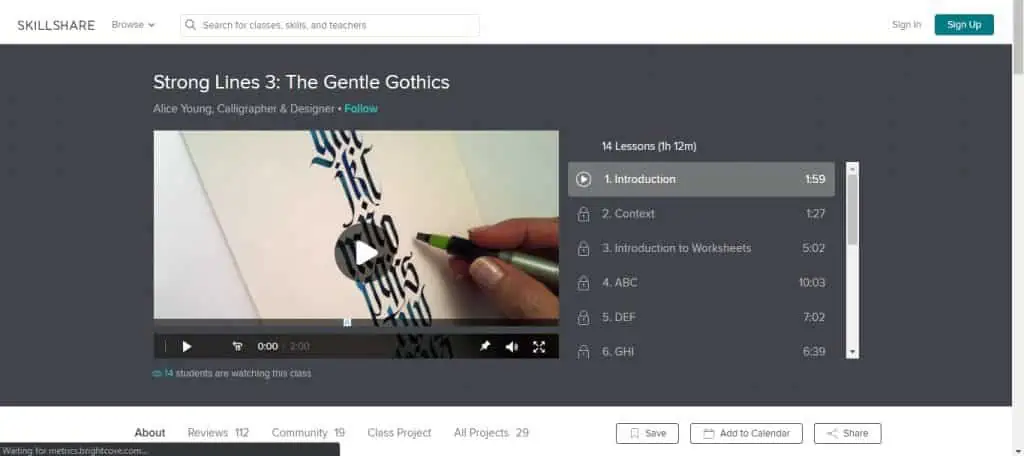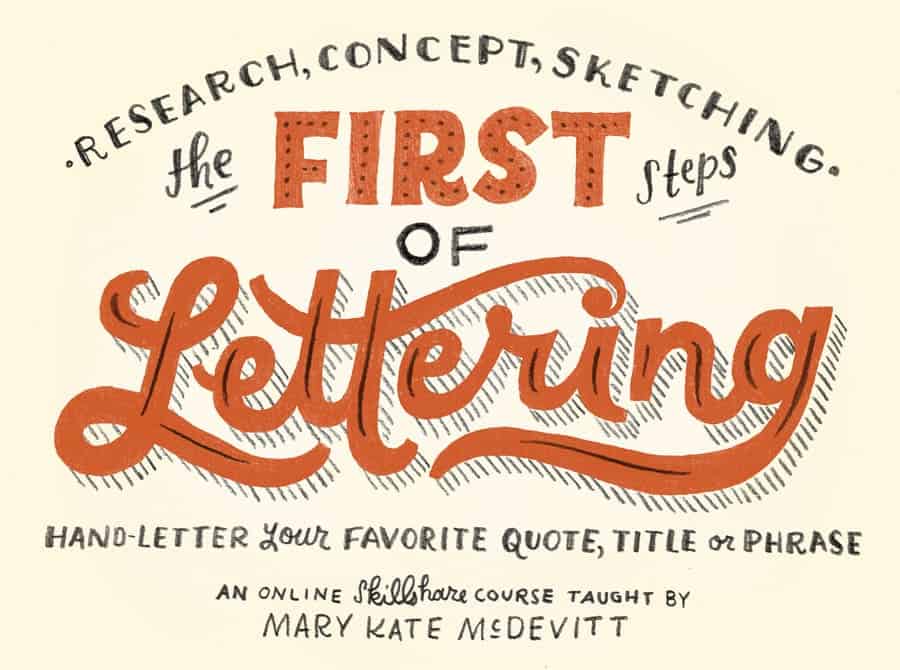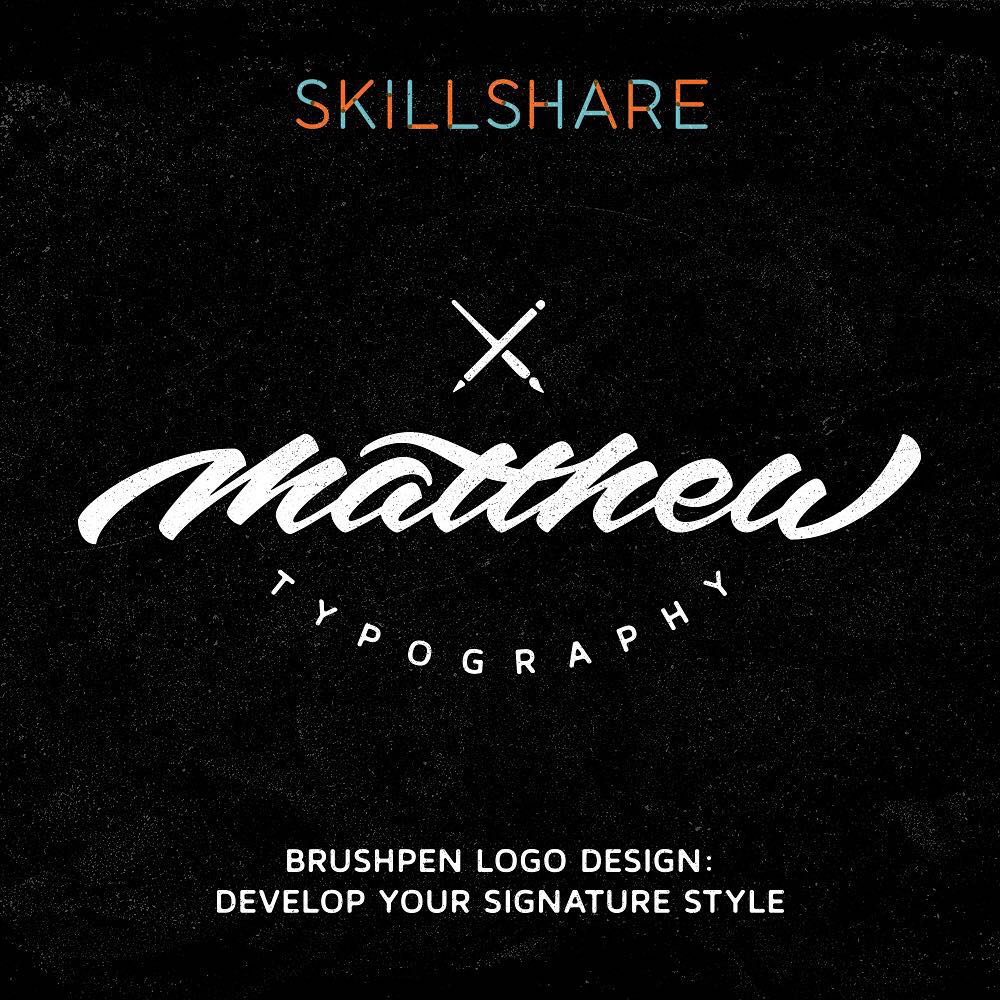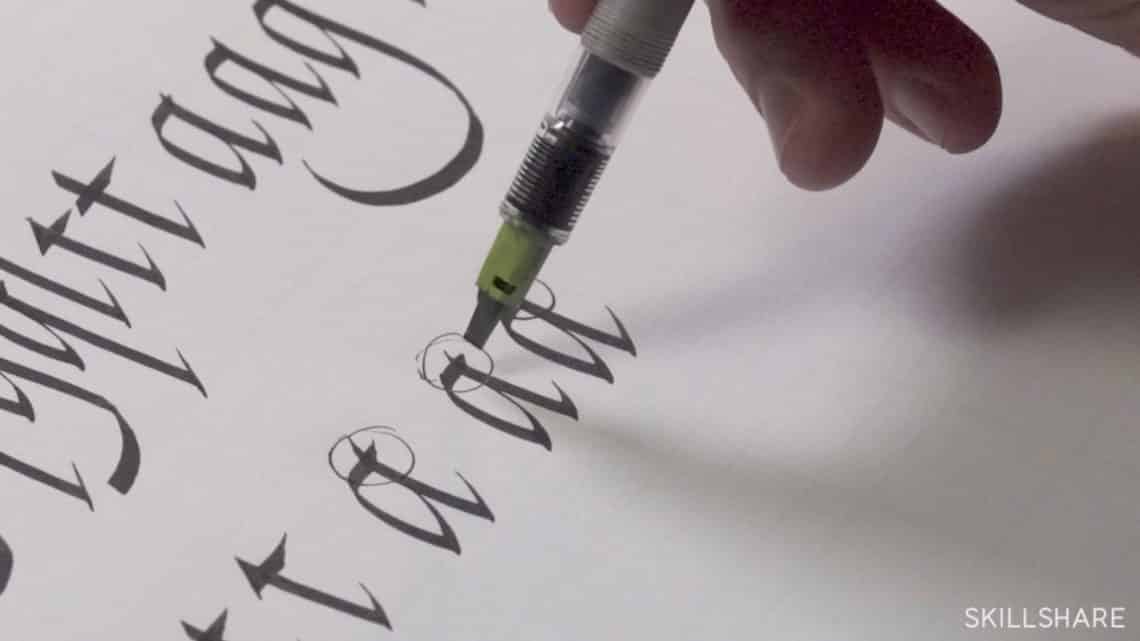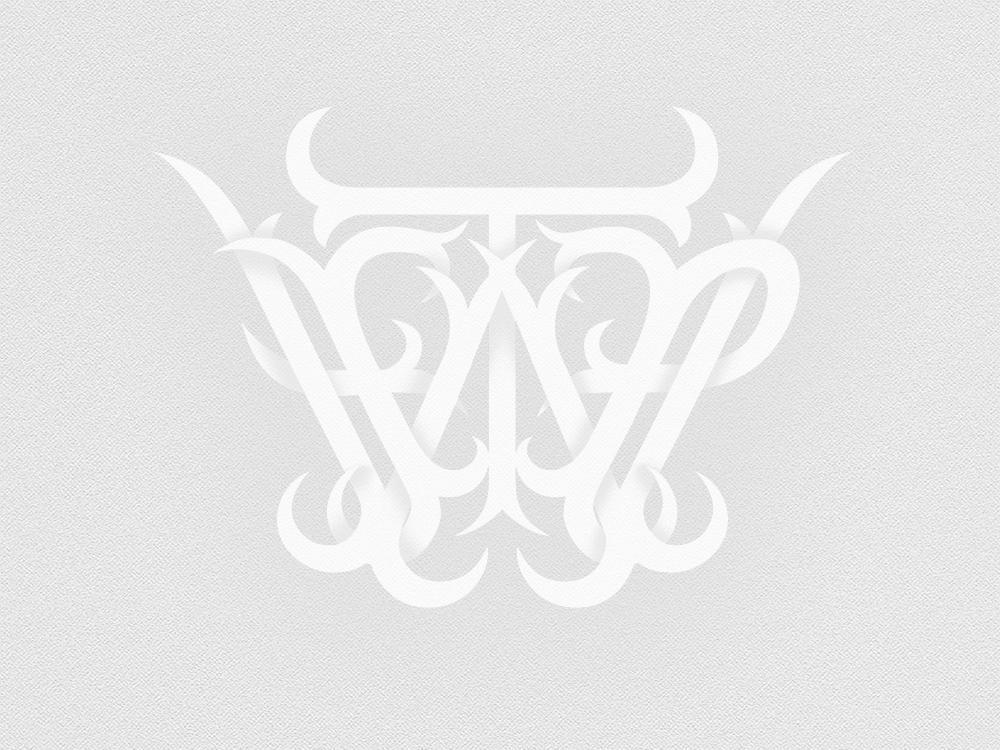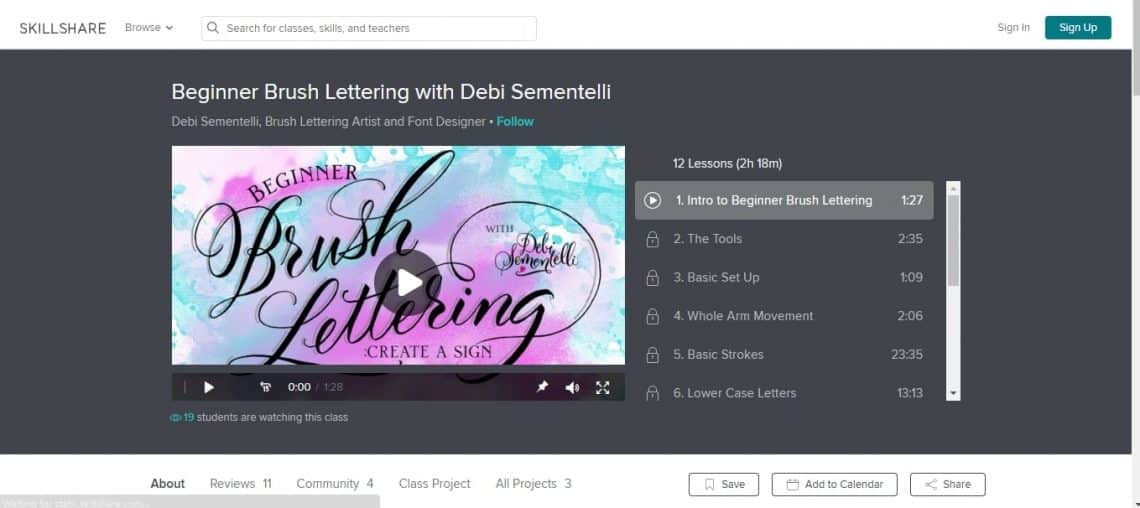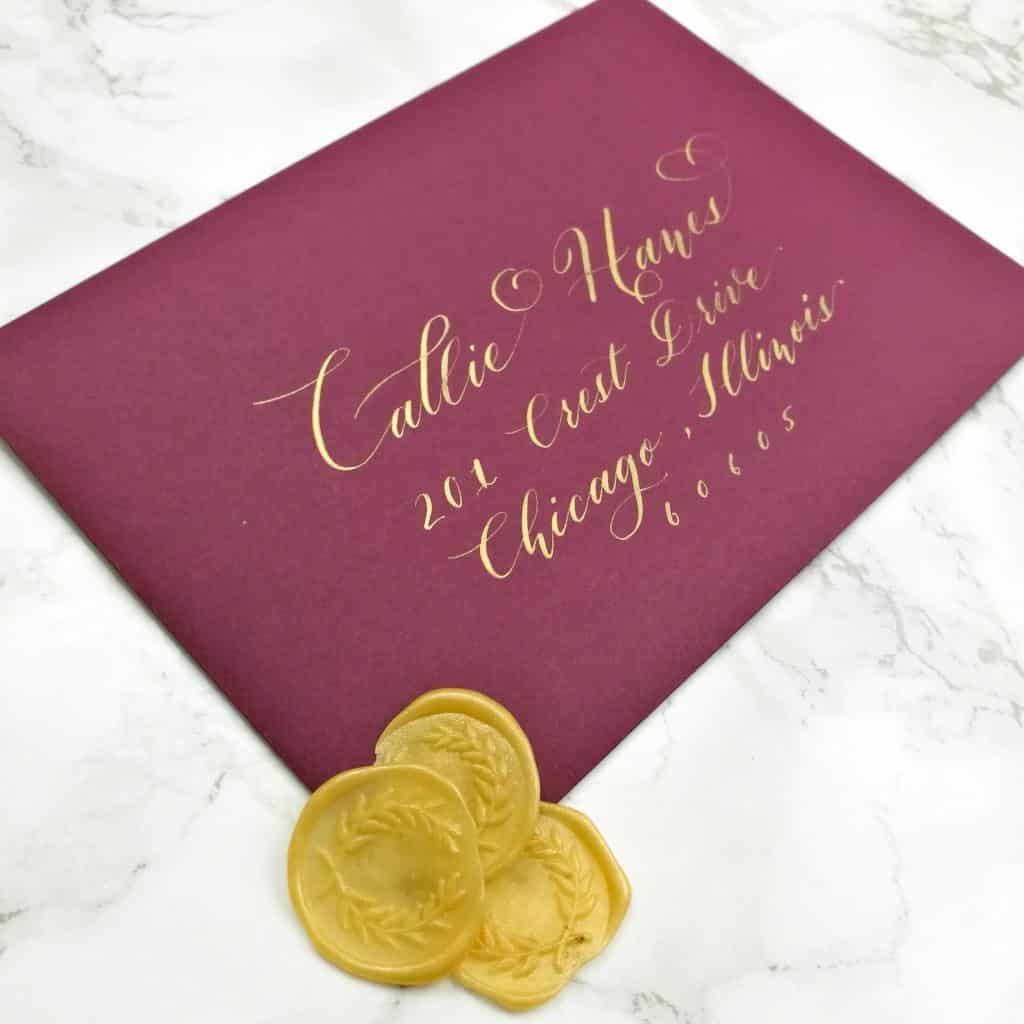
We live in a fantastic day and age where thanks to the internet, learning something new is more accessible than ever.
In this article, we are going to look at some of the best online classes for both hand lettering and calligraphy.
These classes are great for both beginners and more experienced lettering and calligraphy artists.
Hand lettering classes
1. Hand lettering essentials for beginners – by Mary Kate McDevitt
Starting this list strongly with the most popular lettering course on Skillshare – with more than 60+ thousand students already.
In this class, Mary Kate will guide you through her whole process, showing you how to come up with concepts, sketching and finalizing your work.
What makes this class great?
- Ideal for beginners (even if you have 0 experience)
- A clear overview of a process that can be applied in all sort of different projects
- Not too long and not too short – the class covers a lot of ground, and Mary Kate delivers the content very efficiently
2. The golden secrets of script lettering – by Martina Flor
This class is taught by one of the best artists in the lettering community.
As the title says, this class is focused on script lettering, and basically, Martina will guide you from start to finish on how to create a final piece departing from your own handwriting.
What makes this class great?
- Great for beginners – no previous experience needed
- You will learn the fundamentals rules about letterforms, spacing, proportions, etc.
- The course is only 1 hour long which is great for those with a strict schedule
3. Illustrated Lettering: Drawing Intricate Floral forms – by Gemma O’Brien
This class is taught by the insanely talented Gemma O’Brien (a.k.a @mrseaves101) who is famous for her vast detailed filled and jaw-dropping murals that we see on Instagram.
In this class, you will be focused on combining floral illustrations with lettering (on a single letter to be more precise).
Gemma will share her process from start to finish, and this class is filled with lots of helpful tips along the way.
If you want to learn how to effectively combine illustrations with typography, this is definitely the class for you.
Here is what makes this class great?
- Very easy to follow
- Learning about illustrations
- Great tips on shading to add depth
- Short but concise (a bit more than an hour long)
4. The Golden Secrets of Hand-Lettering: Create the Perfect Postcard – by Martina Flor
This is another class by the talented Martina Flor, and this one has a more general overview in comparison to the first one.
This is a great class for both beginners and lettering artists willing to expand their knowledge, and as Martina says – ‘’After this class, you’ll see typography in a completely different way.’’